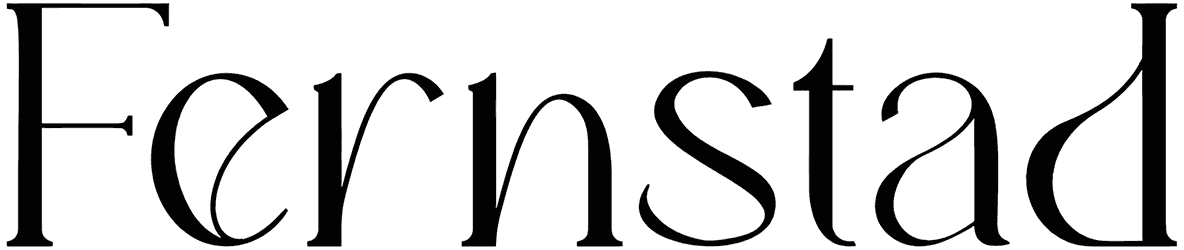
Fernstad Font
Fernstad is a fashionable luxury serif font with a modern display! If there is a matter of designing professional typography that is sophisticated, Fernstad will always be a trustworthy font. It offers slim characters that are elegant with aesthetic standards.
It includes a full set of stylish letterforms, that can create one decorative typography which is attractive. Apart from places you wish to add Fernstad, it can be included in magazines, fashions, cosmetics, weddings, and headlines. It will have an excellent impact!